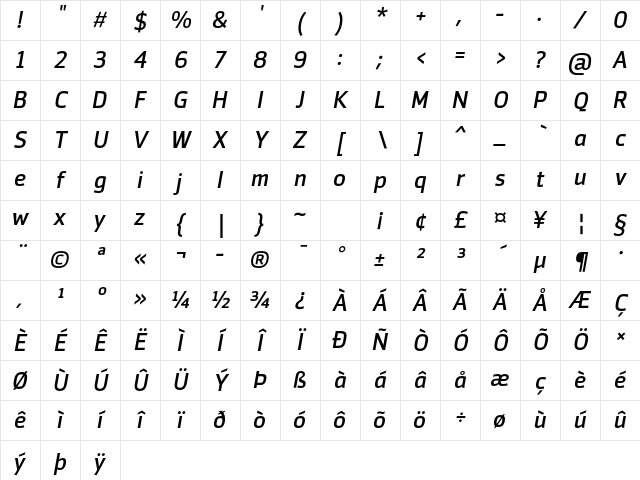
Zemestro Std Italic Free Font
Design Context for Zemestro Std
Zemestro Std is a composed and adaptable typeface that performs quietly and consistently across a wide range of design contexts. The slanted form adds forward momentum and visual energy.
Pro Tip: Use Zemestro Std for emphasis, pull quotes, and subheadings where its slanted energy can add rhythm to the layout.